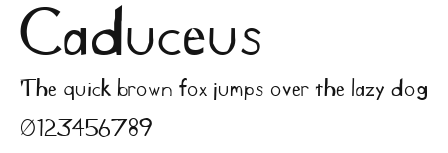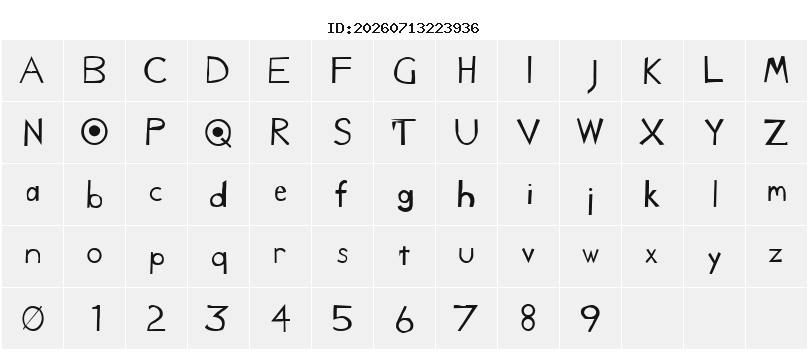
• Font Name: Caduceus
• Full Font Name: Caduceus
About Caduceus.ttf
Caduceus.ttf is a modern, elegant sans-serif font designed for ultimate readability and visual harmony. Perfect for branding, headlines, web design, and print materials.